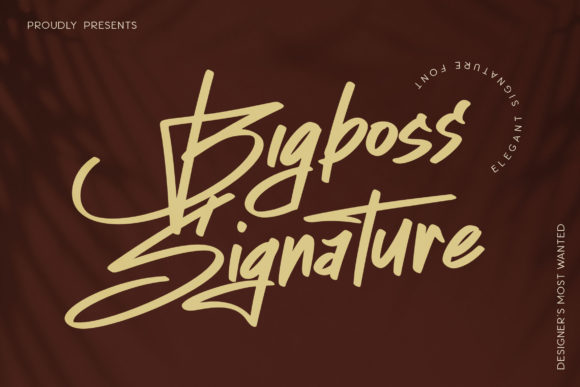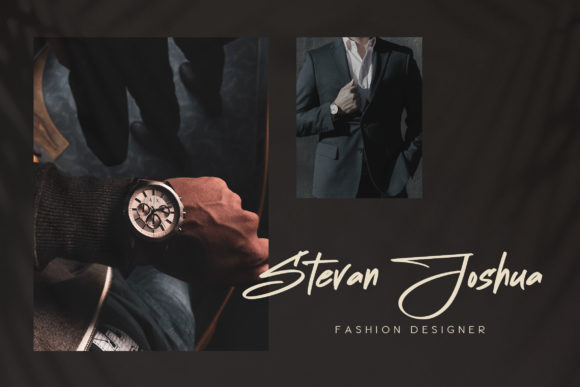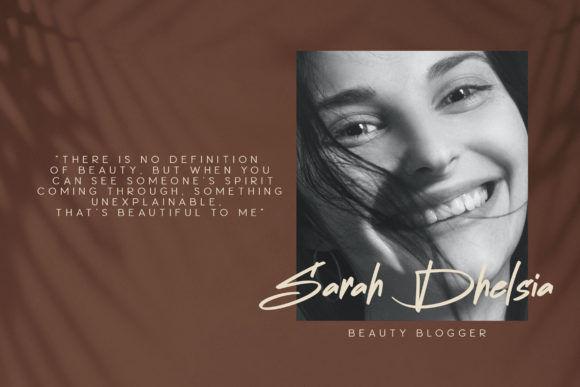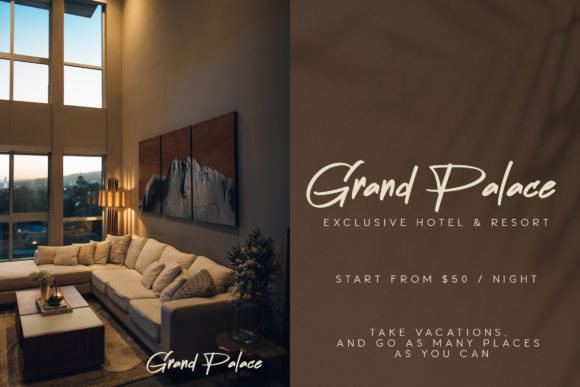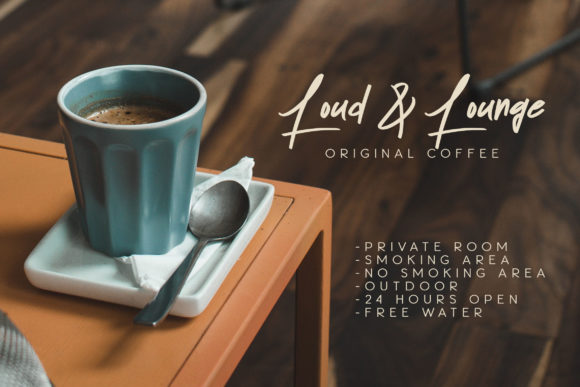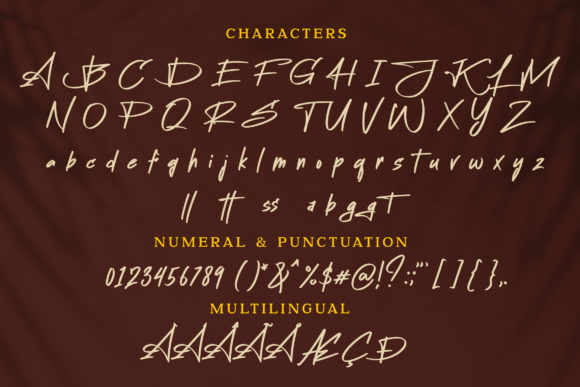
Bigboss Signature Font
About Bigboss Signature Font
Bigboss Signature is a trendy and assertive handwritten font, that’s great for delivering any message with confidence, authenticity and charm. It will elevate a wide range of crafting ideas, from cards, to branding, labels and much more.